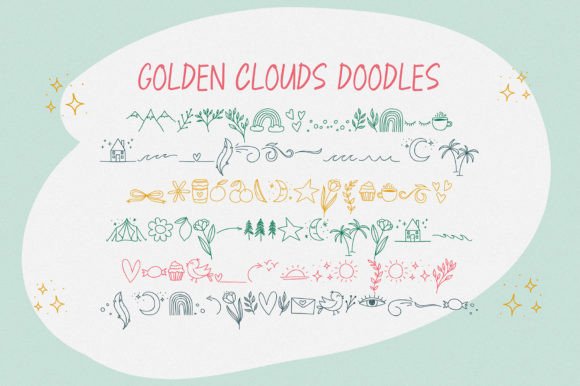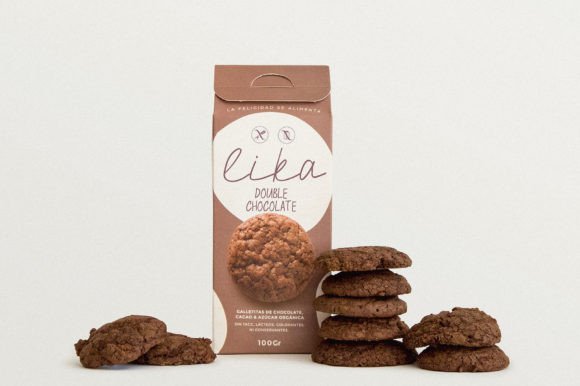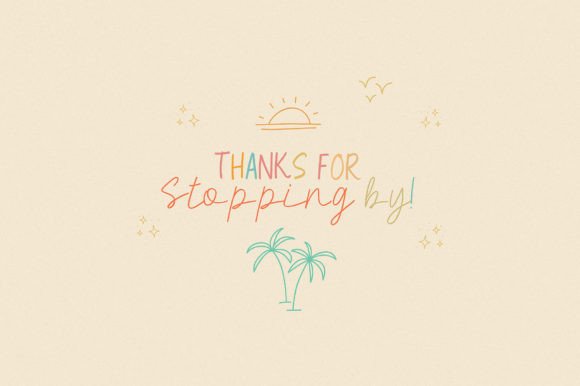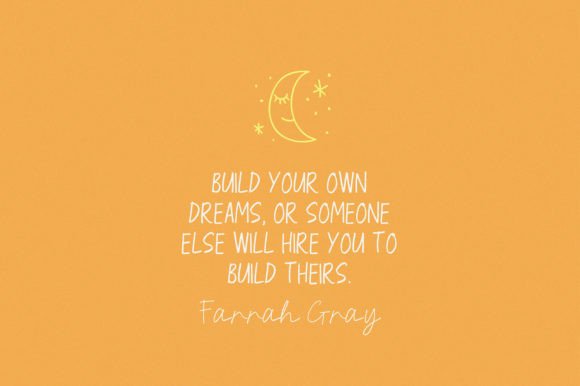
About Golden Clouds Font
Say hello to Golden Clouds. A charming and cute font duo with handwritten letters and doodles!! Bring some irresistible fun to your design with Golden Clouds! This playful font duo consists of a fast-flowing signature font and a charming font with small capital letters as the perfect companion. But that’s not all – the set also includes a bonus Doodle font containing hand-drawn drawings designed to give your projects a handmade appeal.